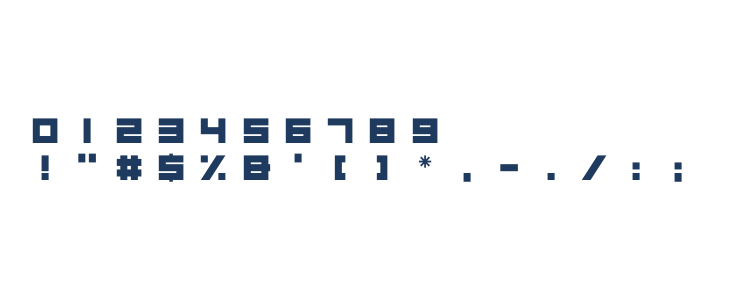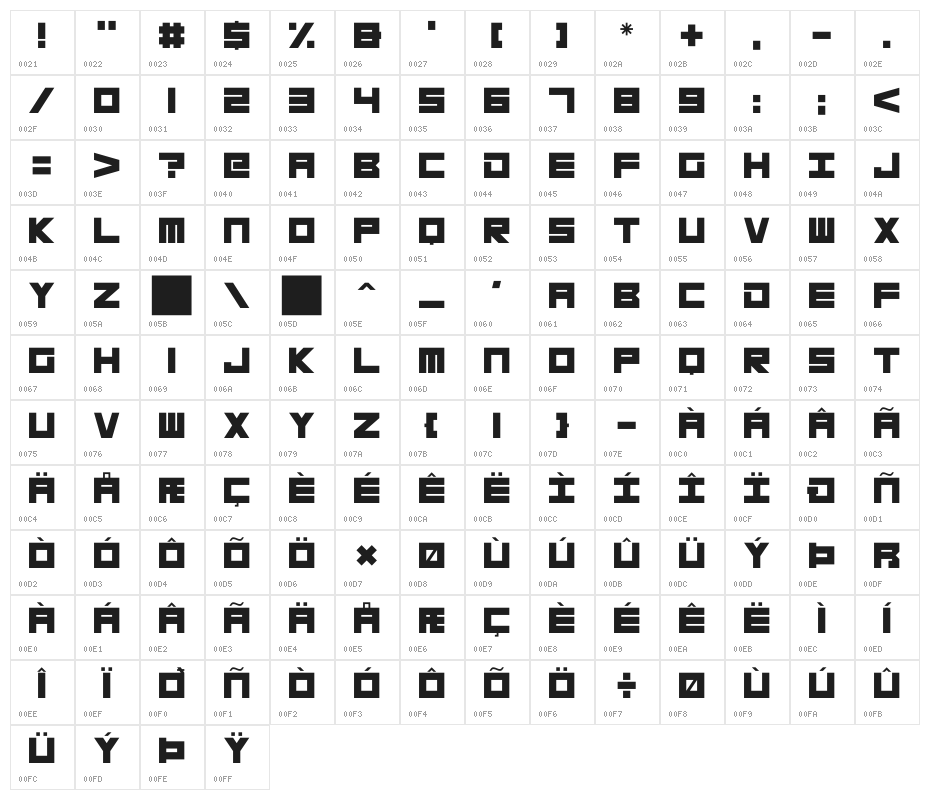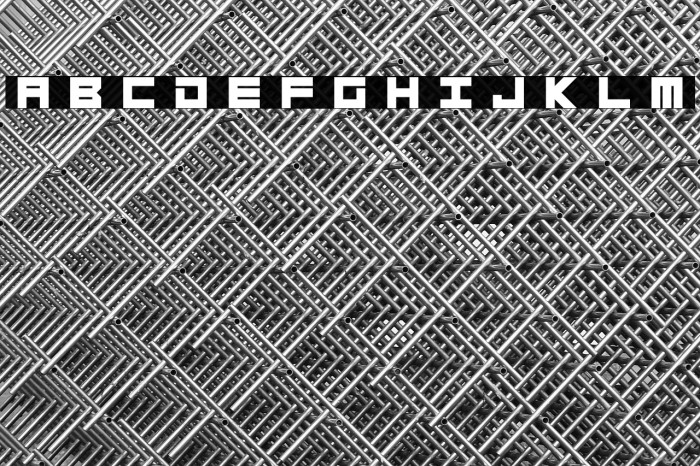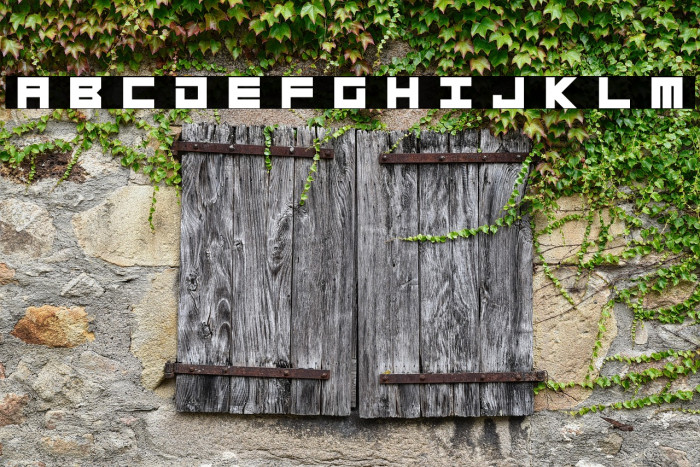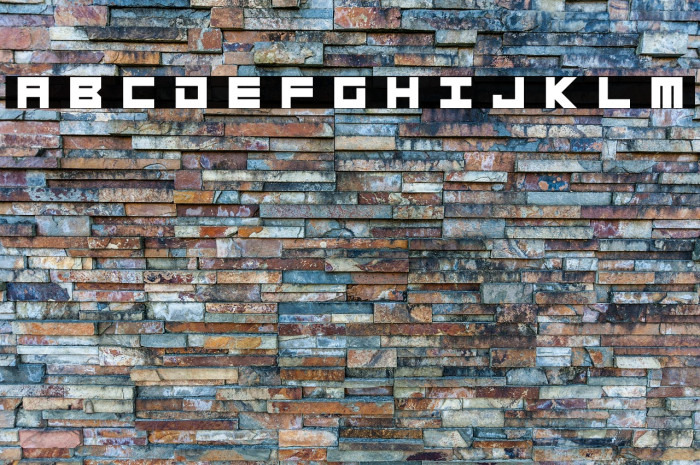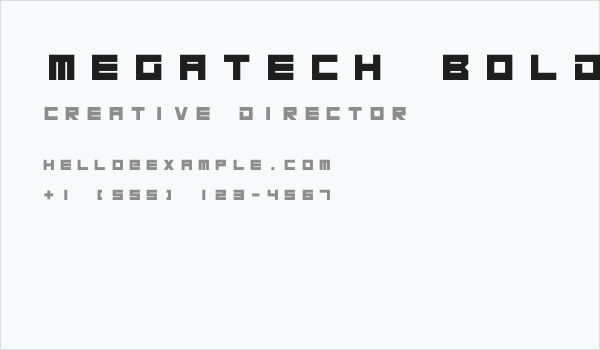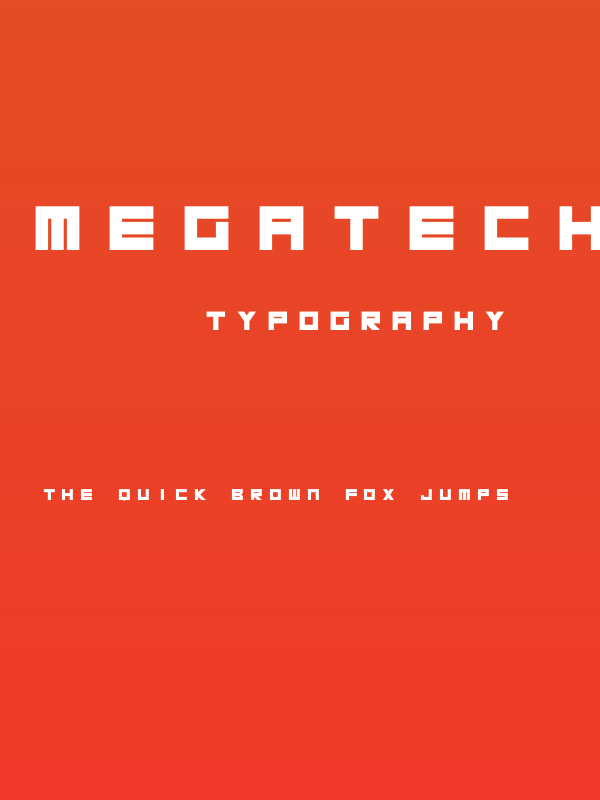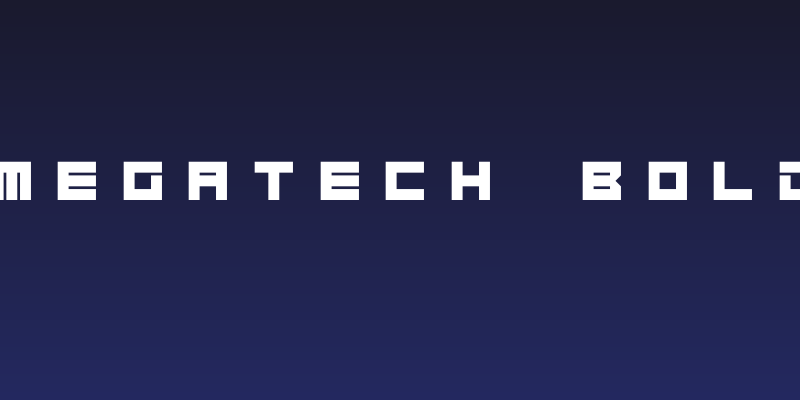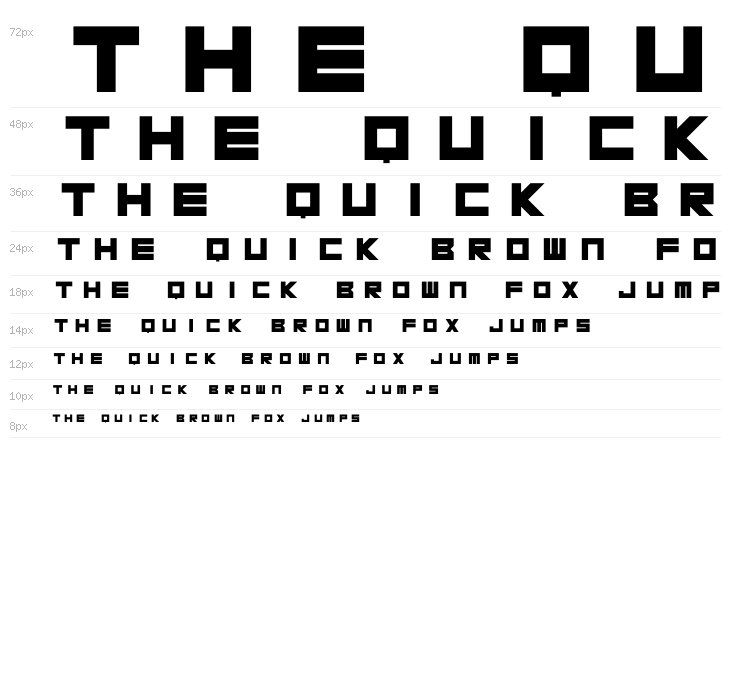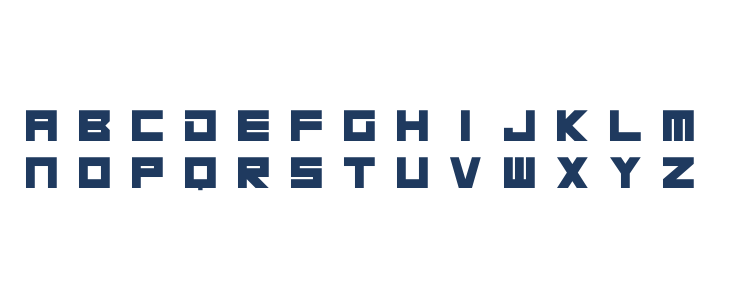
Megatech Bold Font
Megatech Bold Description
This font features a bold, futuristic design with geometric shapes and sharp angles, creating a strong and impactful visual presence. The characters are uniformly wide, giving a sense of stability and modernity. The uppercase letters are particularly striking, with a blocky appearance that suggests a technological or industrial theme. The numbers and special characters maintain this cohesive style, ensuring versatility across various applications. The font's boldness and distinct style make it ideal for projects that require a modern and assertive look.
| Proposed Projects | Ideal for technology branding, video game titles, sci-fi movie posters, and modern digital interfaces. |